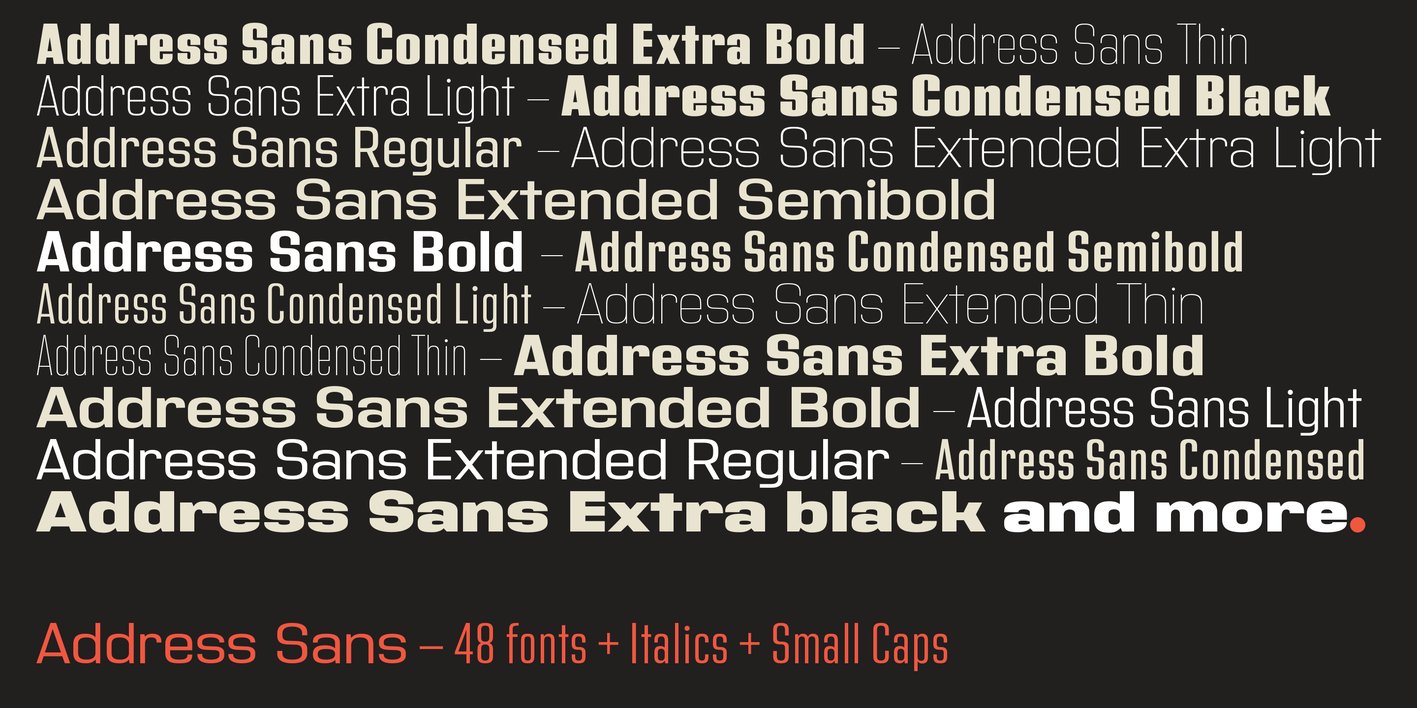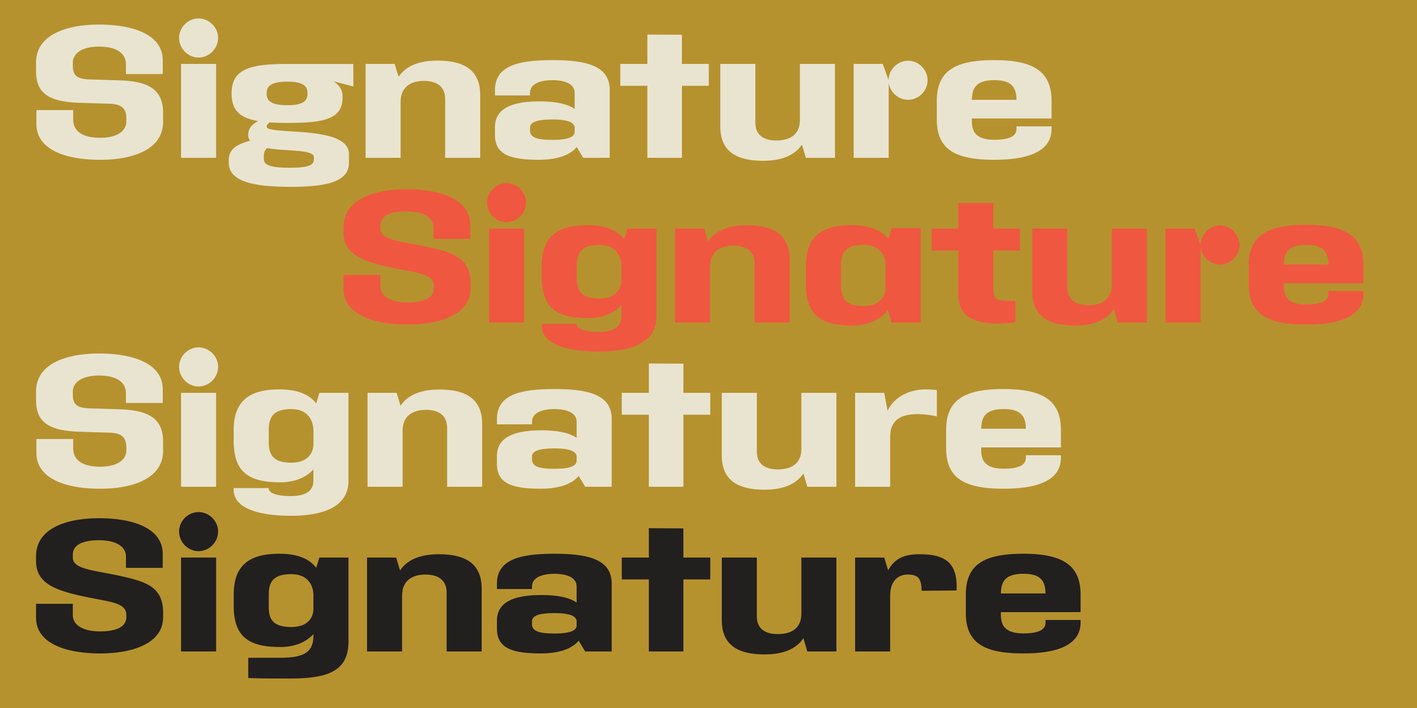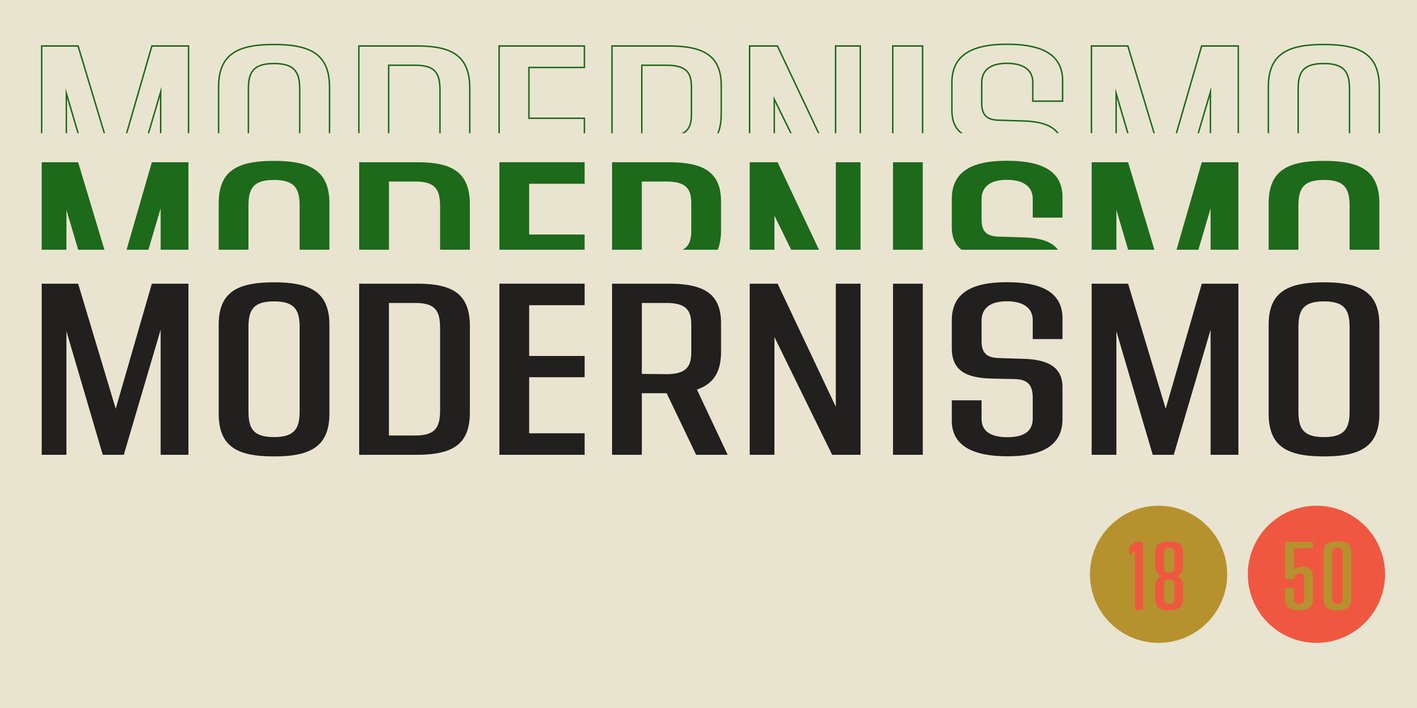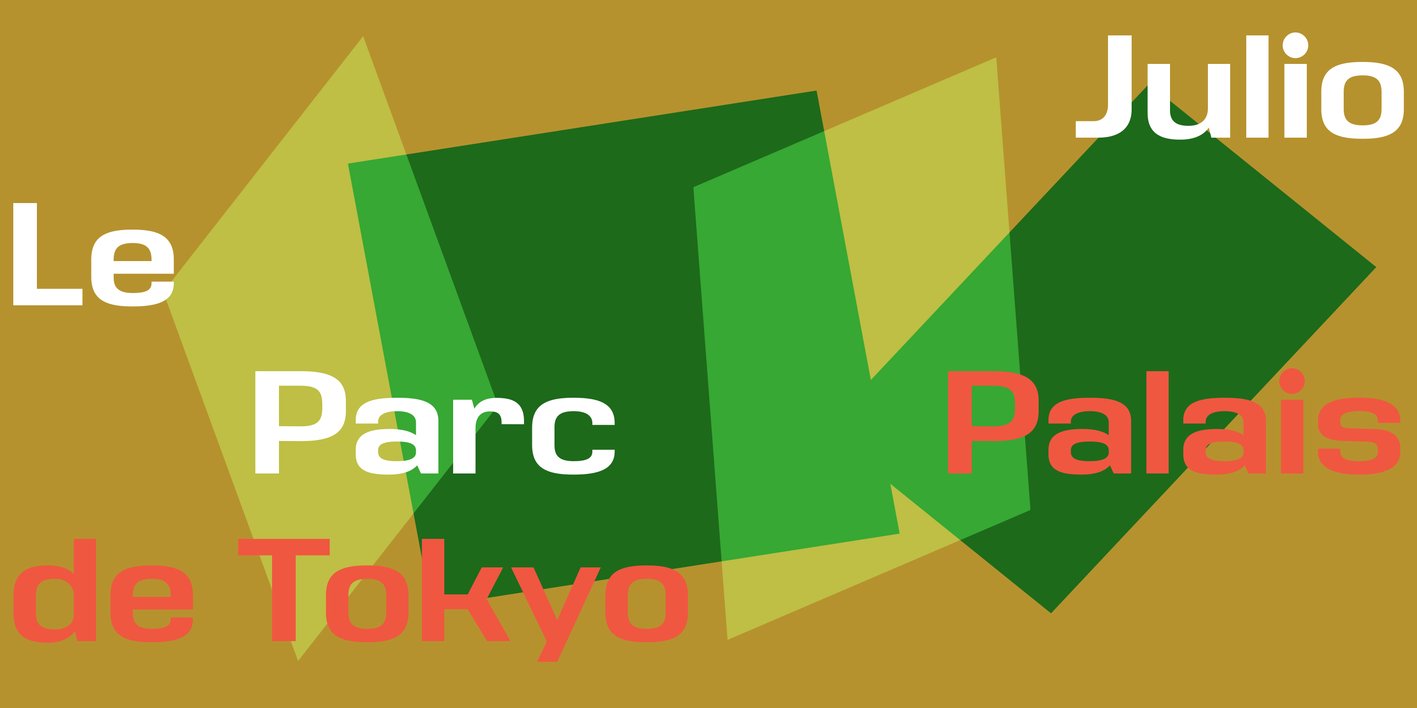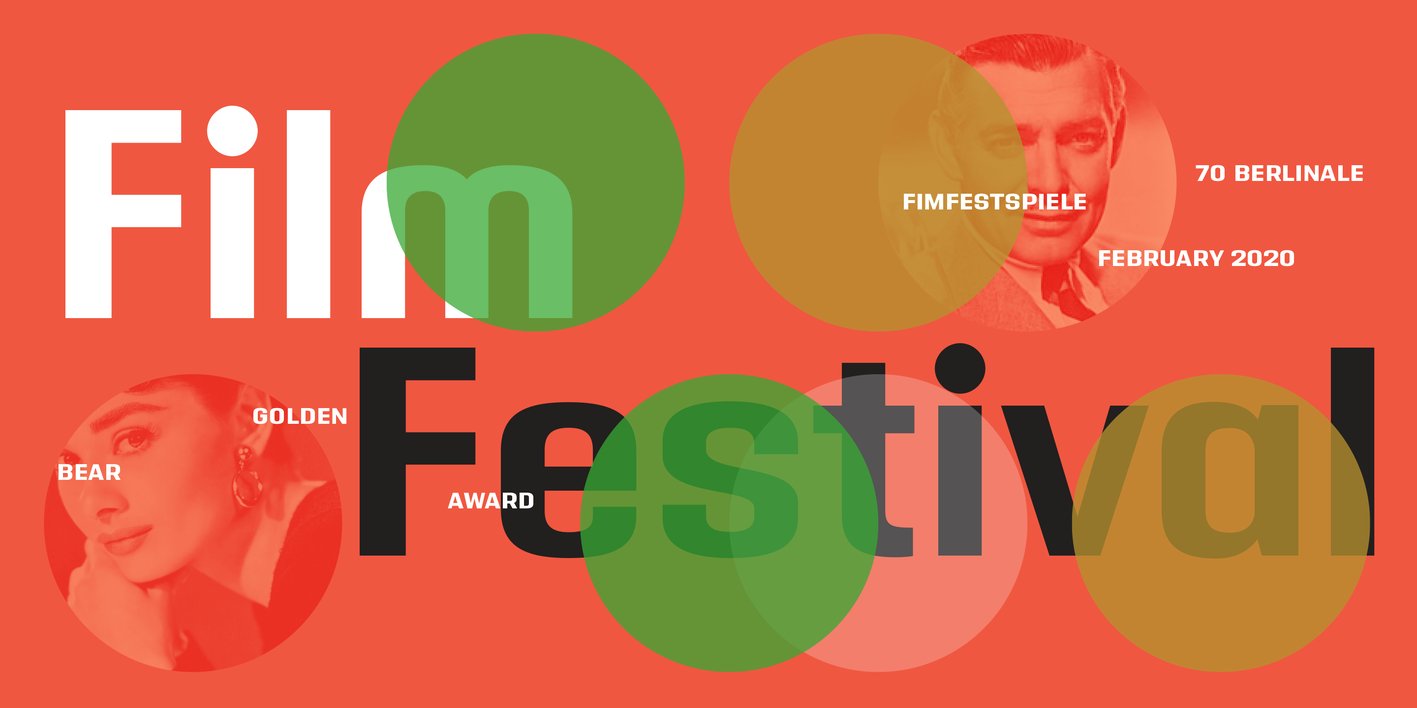
Address Sans Pro Font
Address Sans Pro Font is perfect for corporate communications, business presentations, professional websites, annual reports, technical manuals, user interface design, wayfinding systems, architectural signage, government documents, healthcare materials, financial reports, and institutional projects that require clear, authoritative, and highly legible sans-serif typography.
What makes Address Sans Pro Font so exciting is its exceptional clarity and professional authority that delivers maximum readability across all communication channels while maintaining sophisticated design appeal. This typeface features clean, geometric letterforms with optimized spacing and balanced proportions that ensure excellent performance in both digital and print environments. The font's neutral yet distinctive character makes it ideal for organizations that need typography that conveys competence, reliability, and professional excellence.
Address Sans Pro Font typically comes in multiple weights ranging from Thin, Light, Regular, Medium, Semi-Bold, Bold, to Black, along with their corresponding Italic variations. Professional versions often include small caps, tabular figures, extended character sets, and comprehensive international language support that provide complete typographic solutions for global organizations and complex document systems.
Whether you're developing corporate identity systems, designing public information materials, or creating professional documentation, Address Sans Pro Font delivers unmatched reliability and readability that builds trust with audiences who demand clear, accessible communication. Its versatile nature makes it equally effective for headlines, body text, and user interface elements across diverse applications.
The precisely engineered letterforms of Address Sans Pro Font showcase the highest standards of contemporary sans-serif design with particular attention to accessibility and universal readability. Each character has been meticulously crafted to ensure optimal legibility across various sizes, media, and viewing conditions, making it particularly valuable for mission-critical communications where clarity is paramount.